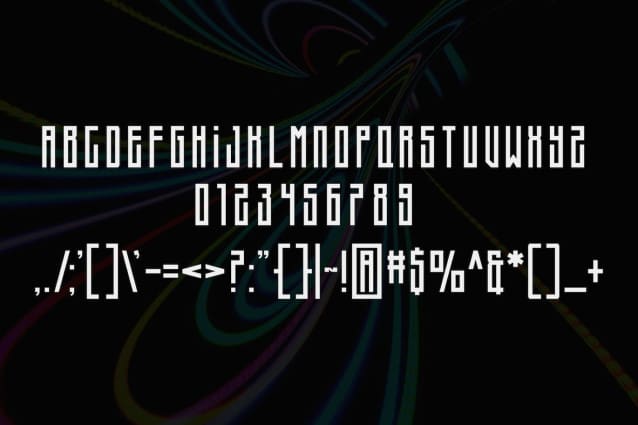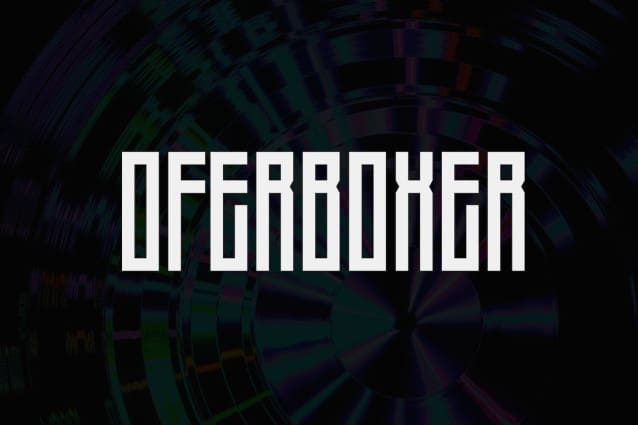
Oferboxer Display Font
Oferboxer Display Font, is an elegant and authentic display font. It would be a perfect choice to design posters, affiches, logos, t-shirt and magazine prints, eye-pleasing typographic designs and more.